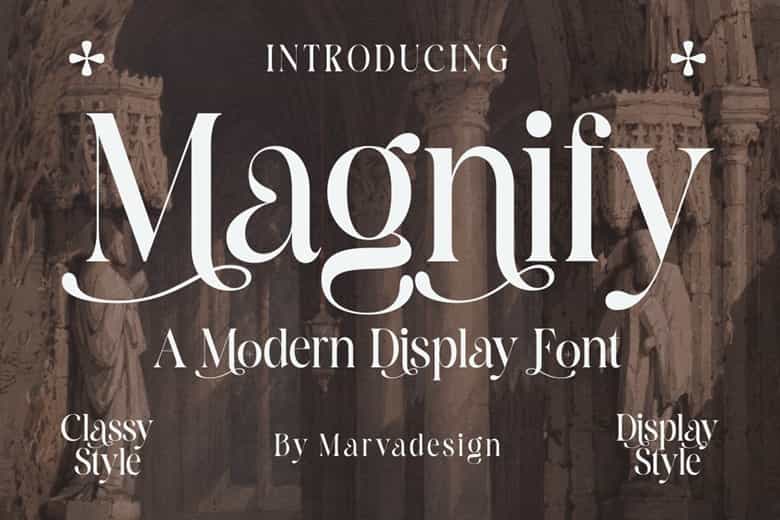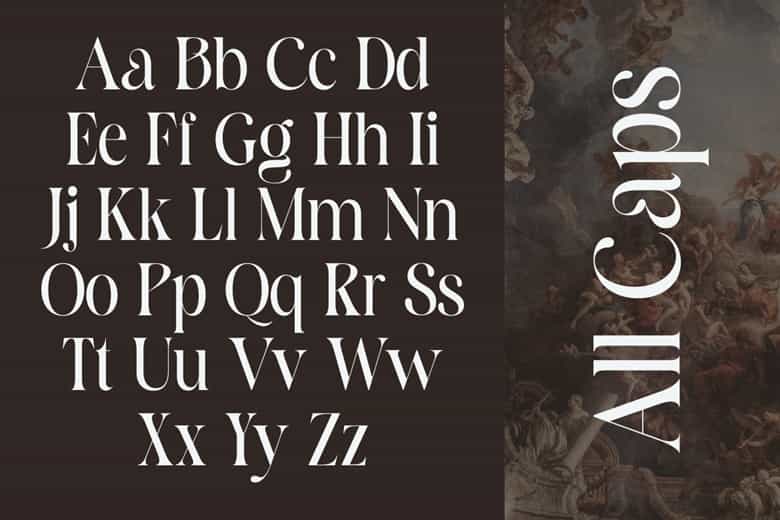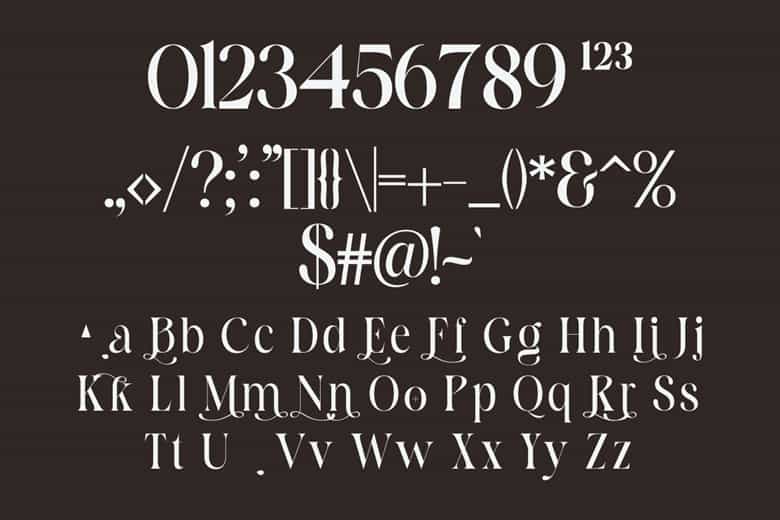
Magnify is a clean and simple typeface that has a modern feel and is perfect for any project. Featuring simple yet elegant design, it can enhance every message and make it look elegant. All your title styles, from the extravagant to the simple, will look professional and up to date thanks to Magnify’s sleek design. Liven up your design with this font that has the ability to easily switch between basic and modern look.